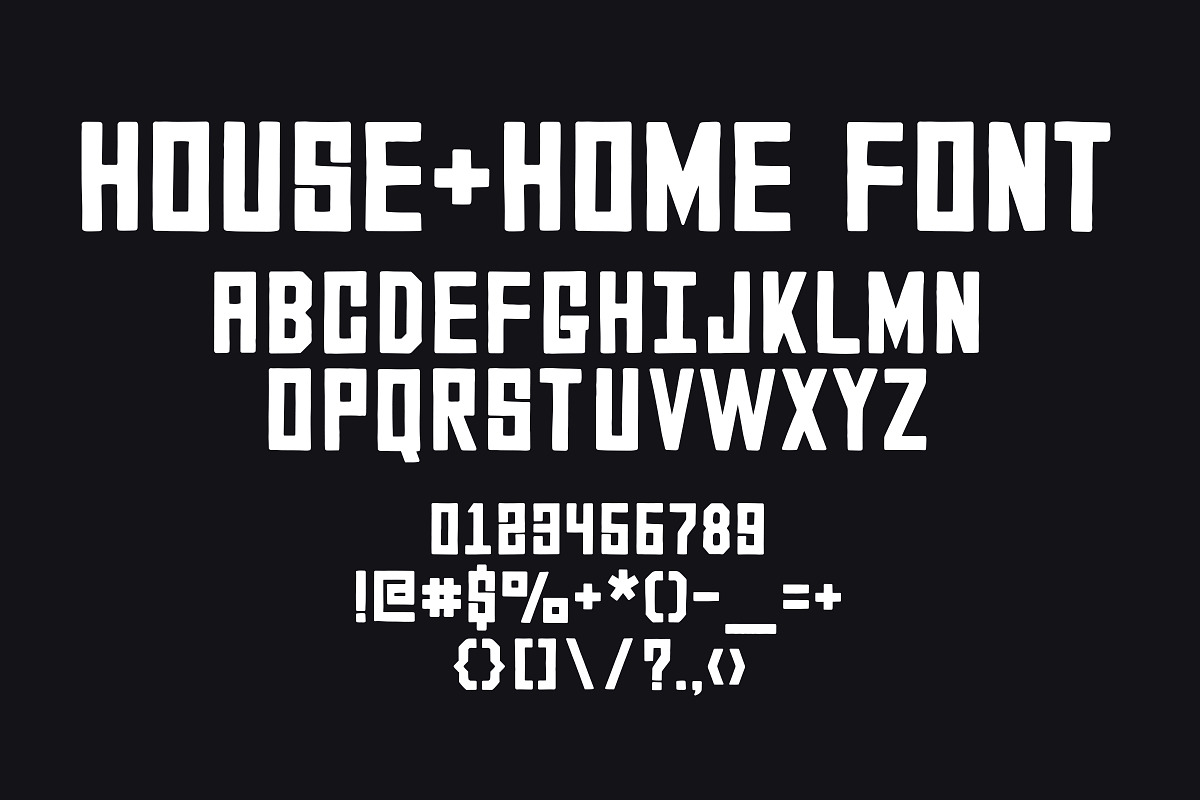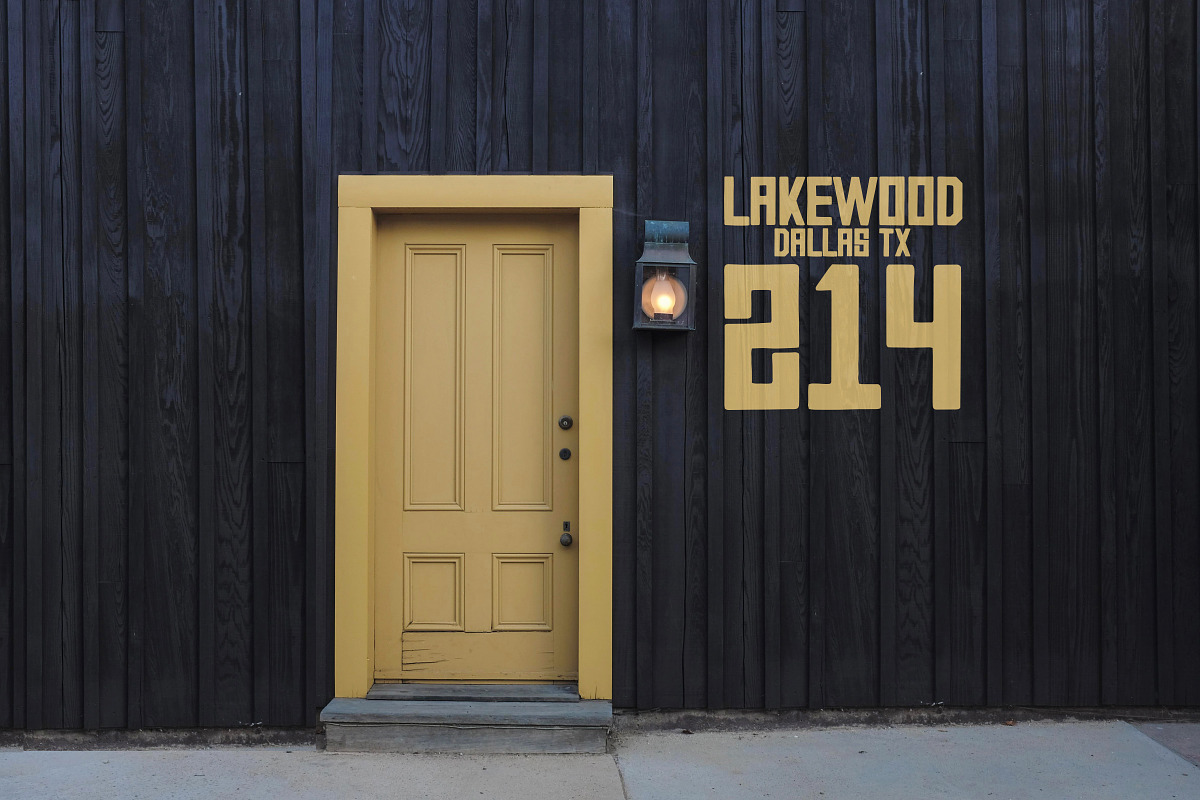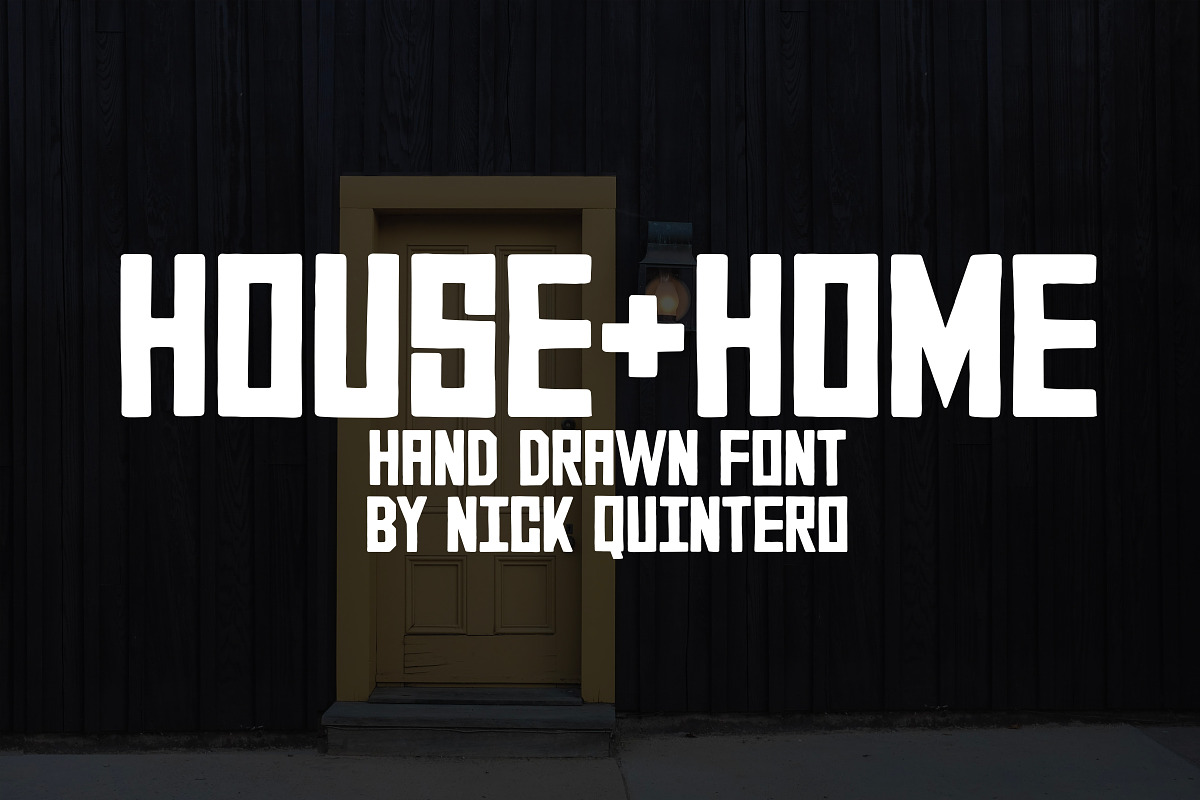
House & Home Font
A hand drawn font with caps & variants of the caps in the lowercase letters, numbers & symbols. This font is perfect to add a hand drawn touch to any project!